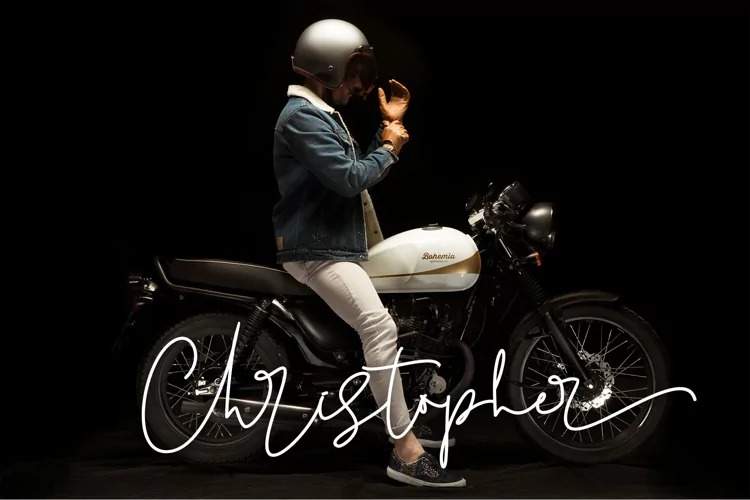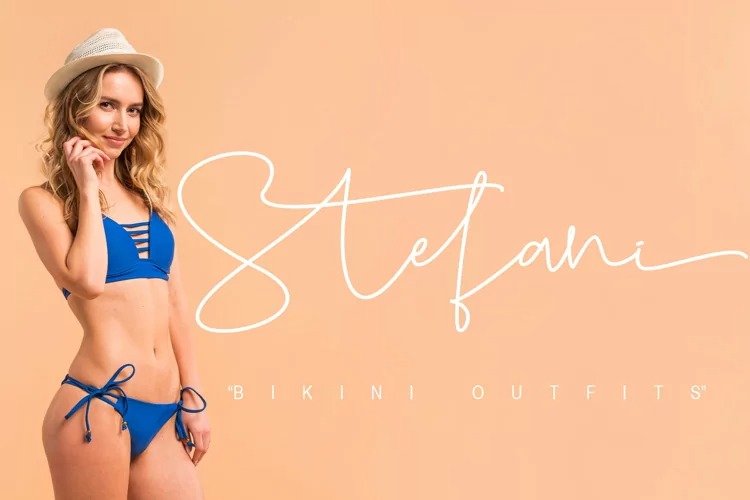
Michael Signature Font
This is a thin and beautiful handwritten font crafted & designed by Stefani Letter. Its distinct and well rounded letters make this font a masterpiece. It features a varied baseline, smooth lines, gorgeous glyphs, and stunning alternatives. This font is PUA-coded which means you can access all the amazing glyphs and swashes with ease! It also features many special features including glyphs and alternate ligatures so that it displays natural and original handwriting.